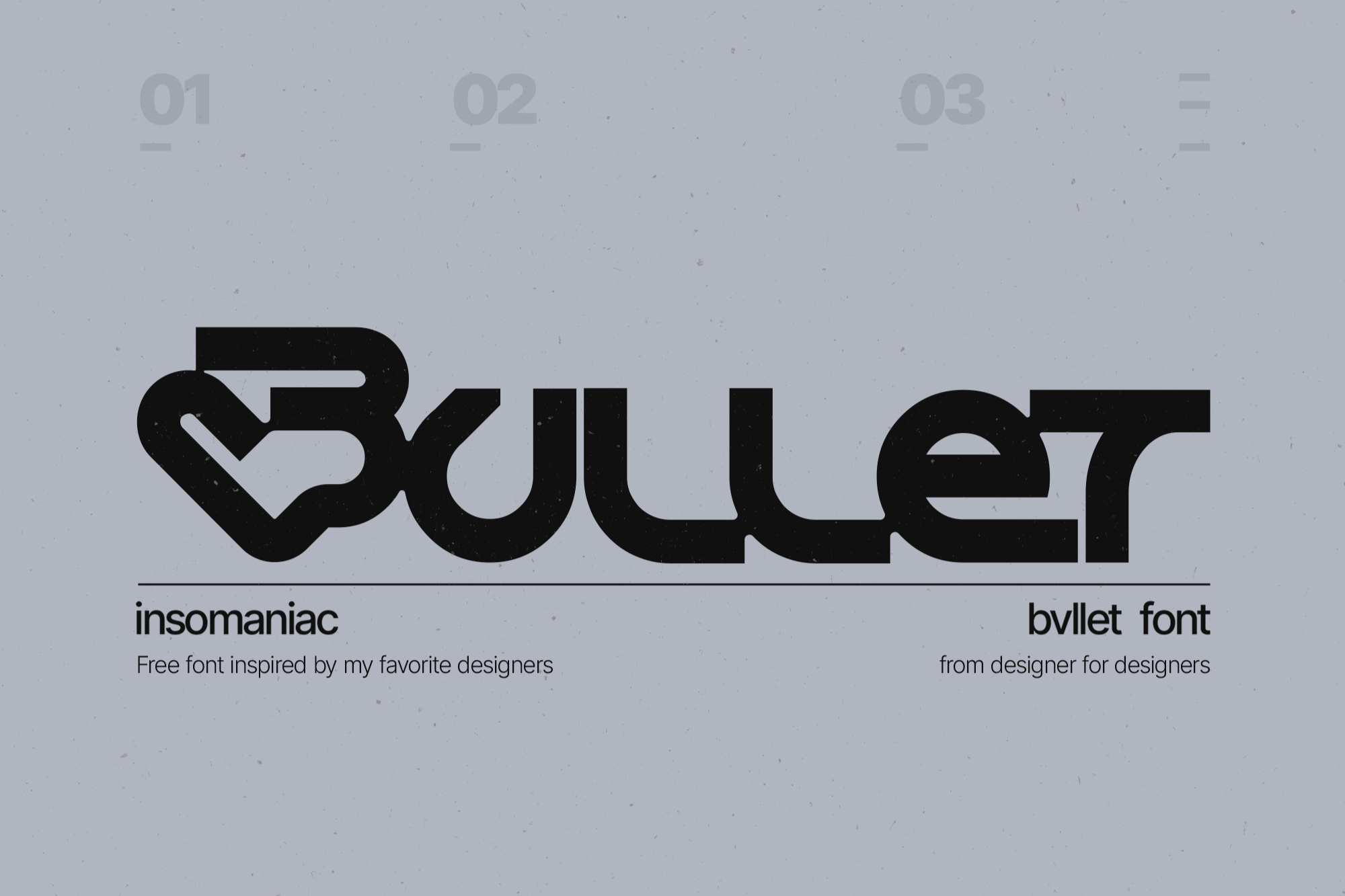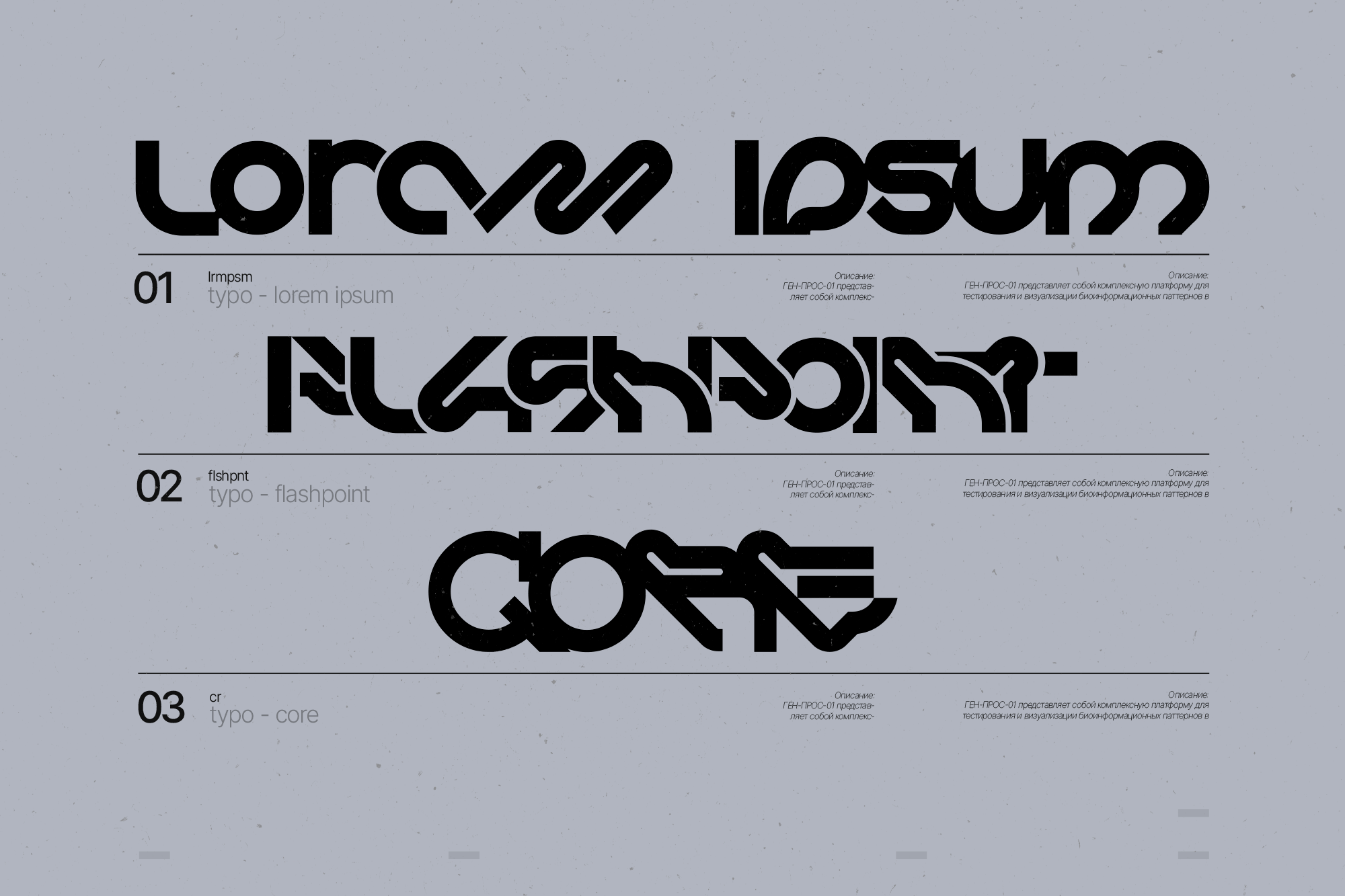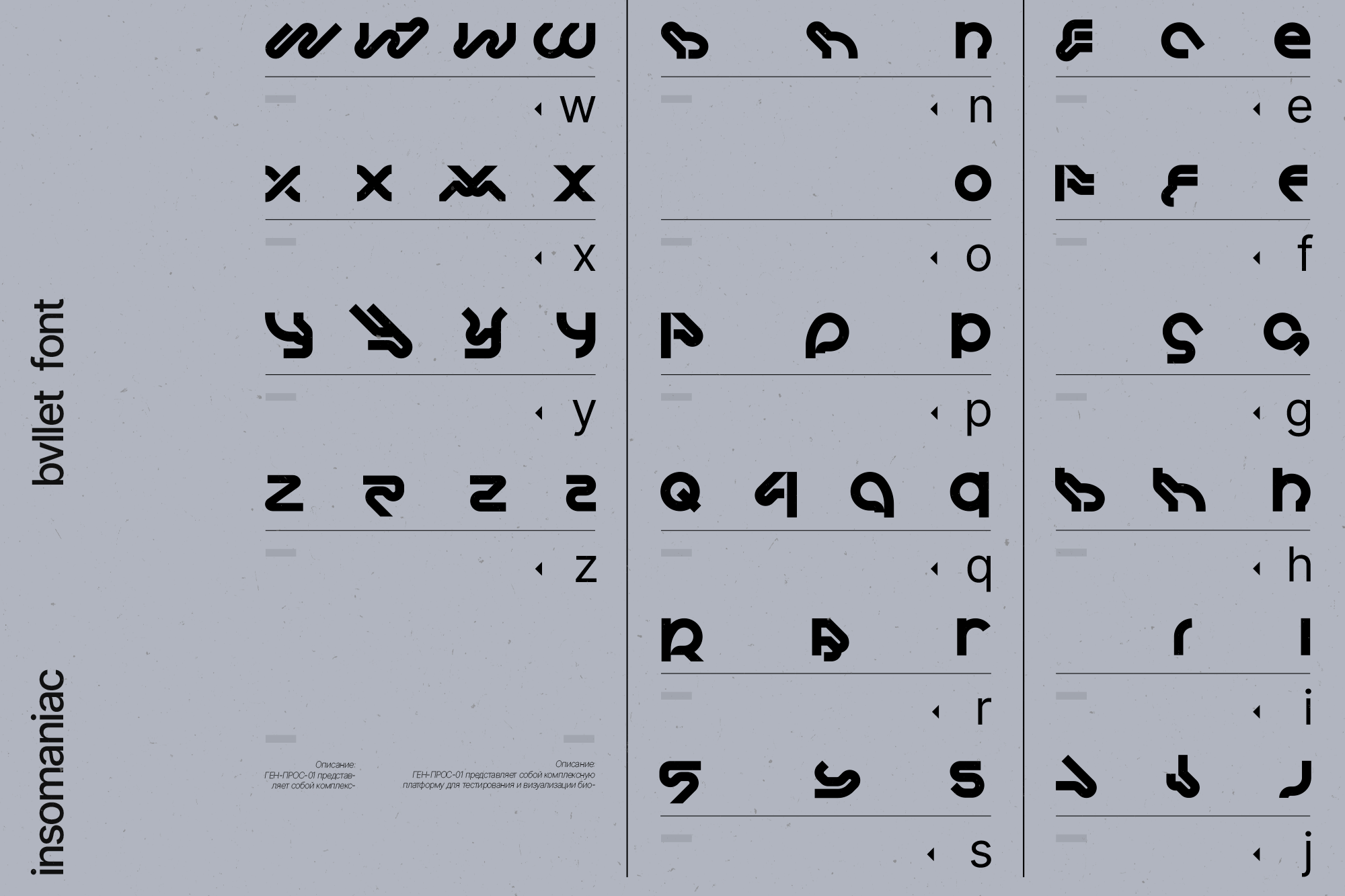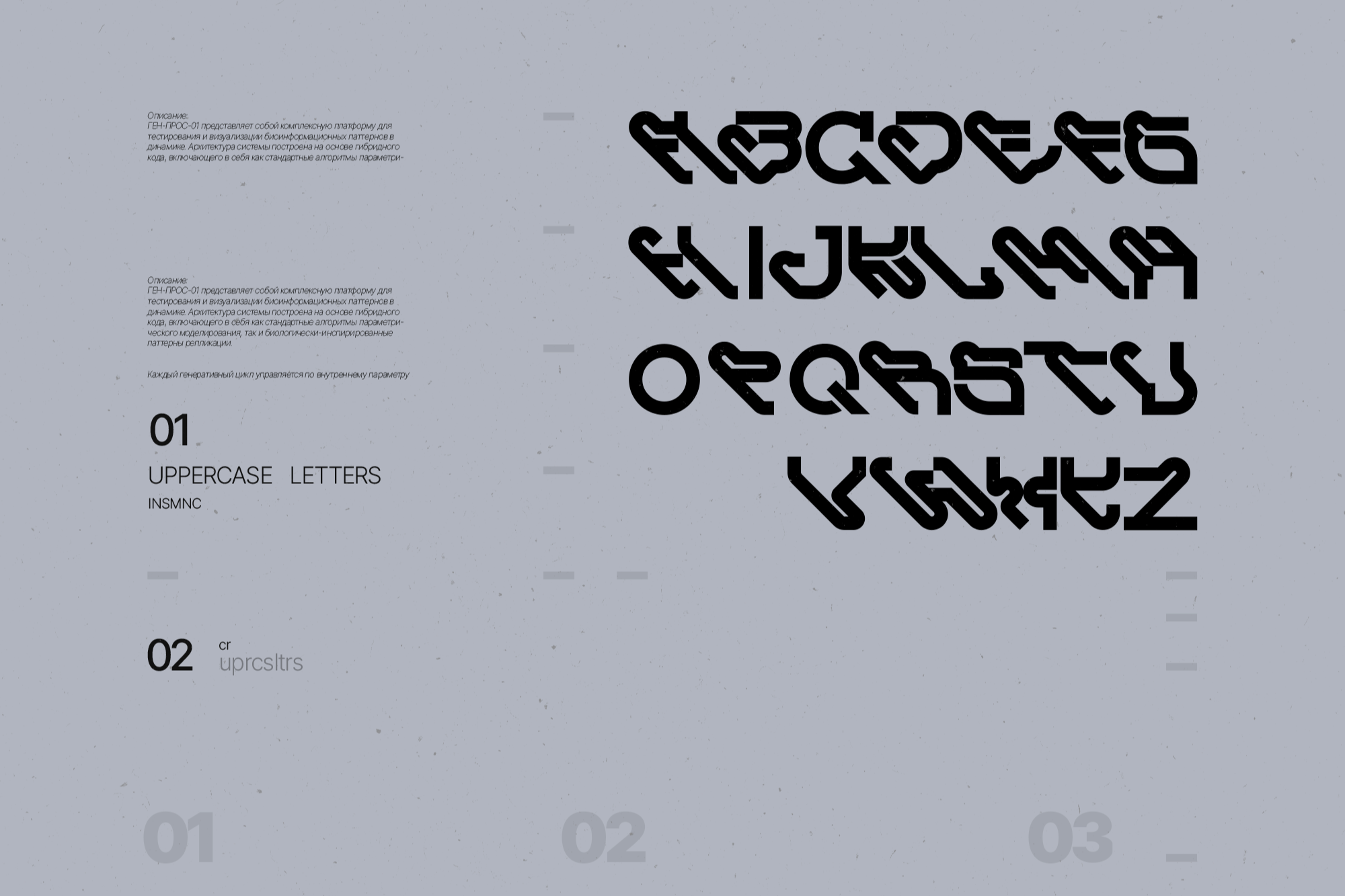
BVLLET
BVLLET is a decorative display font by insomaniac, released under the SIL Open Font License 1.1. It has heavy geometric forms, rounded corners, and a futuristic modular structure. Its letters use thick low-contrast strokes, connected shapes, angular cuts, and simplified counters that create a constructed, tech-oriented rhythm. Several characters have abstract forms, so the font reads best at large sizes where its unusual shapes have enough space. The style suits experimental titles, sci-fi graphics, electronic music artwork, gaming visuals, posters, logos, and interface-themed compositions, but it is less suited to long paragraphs.